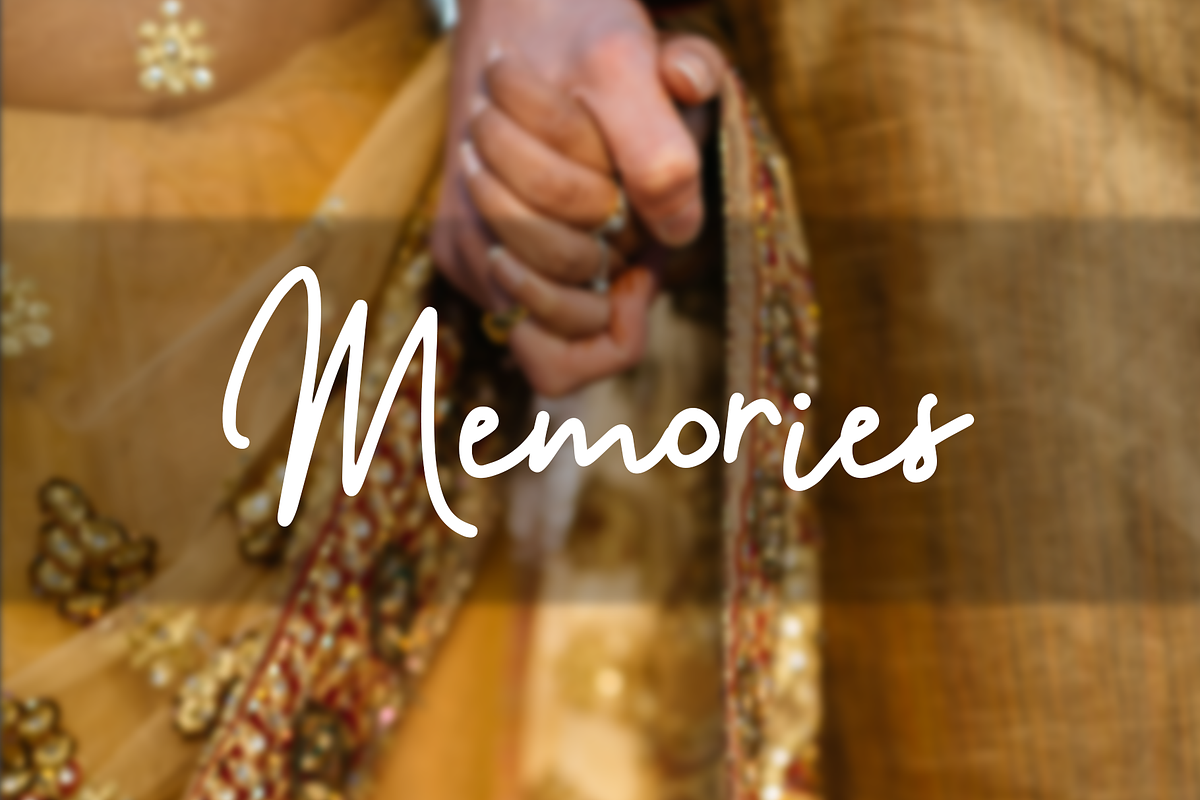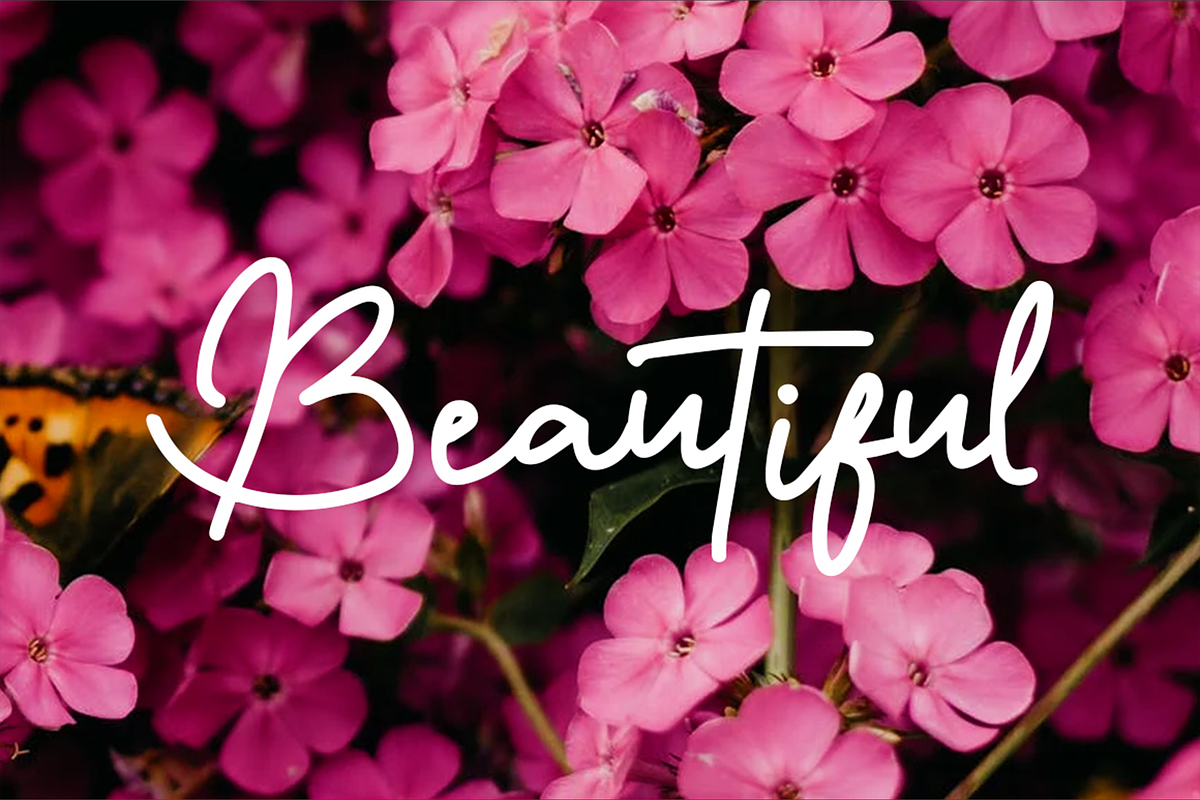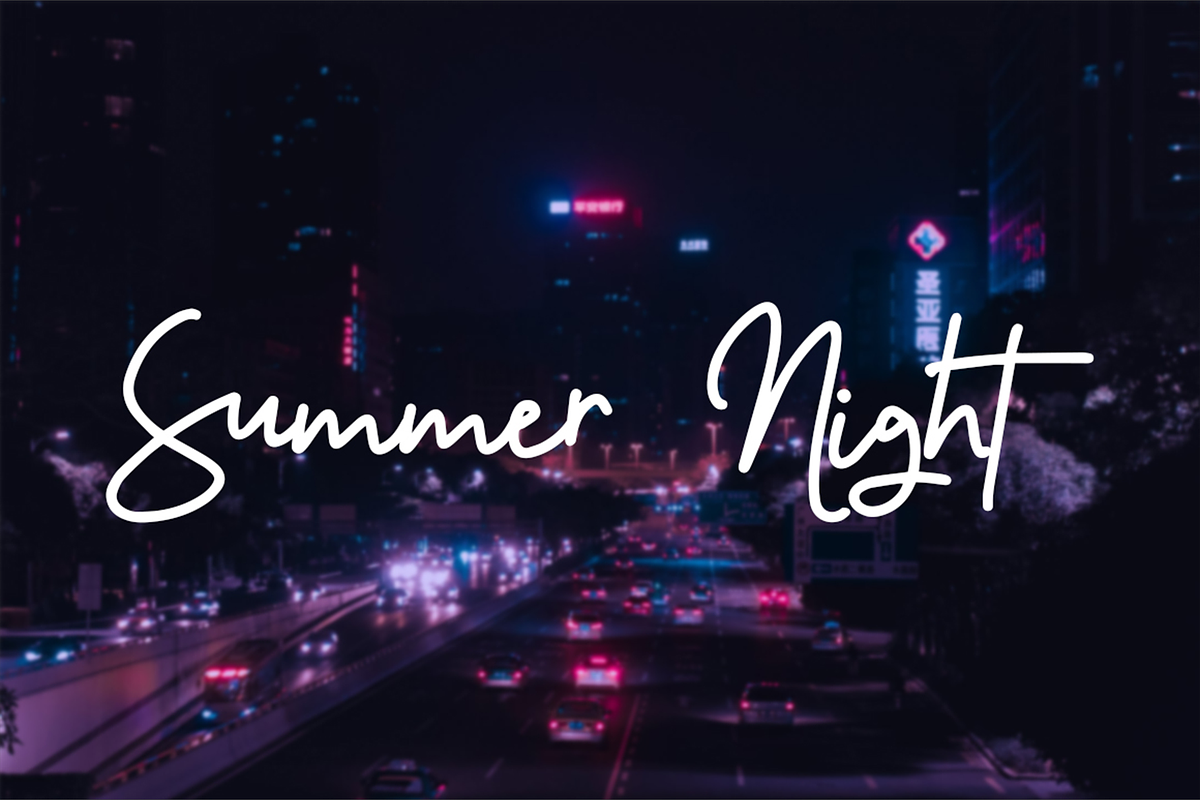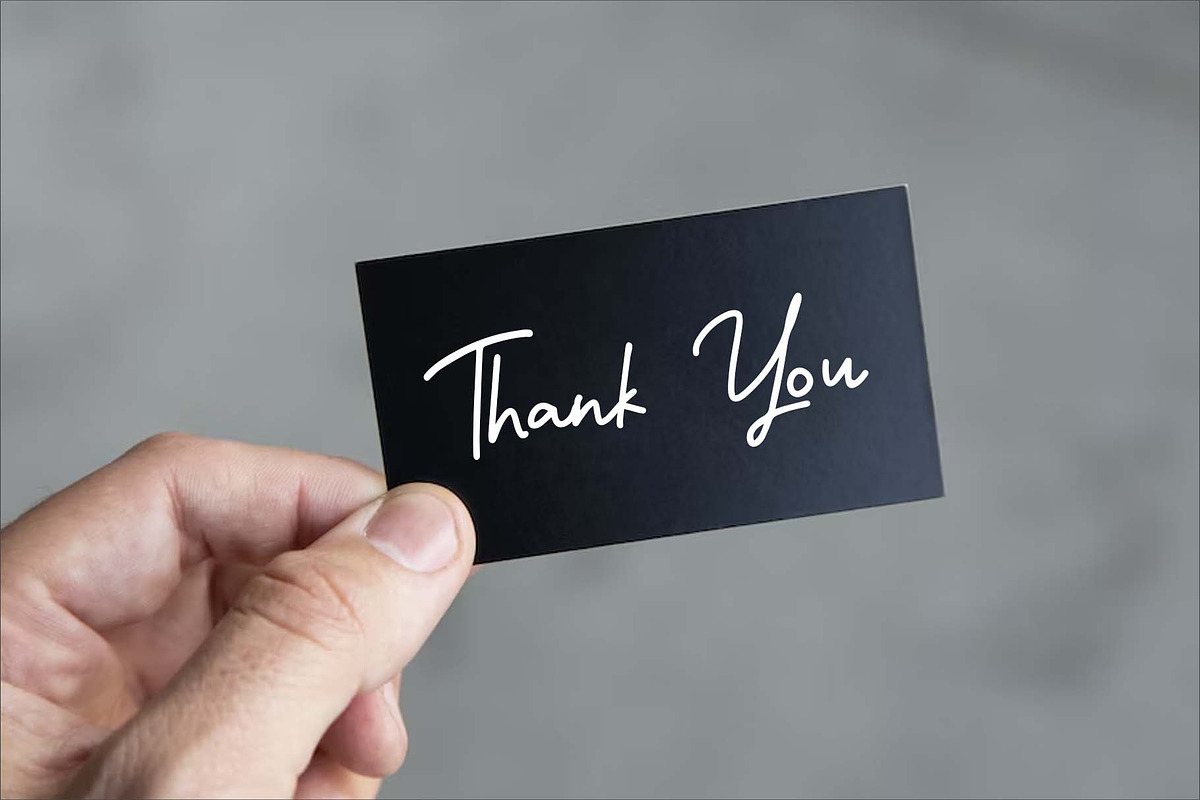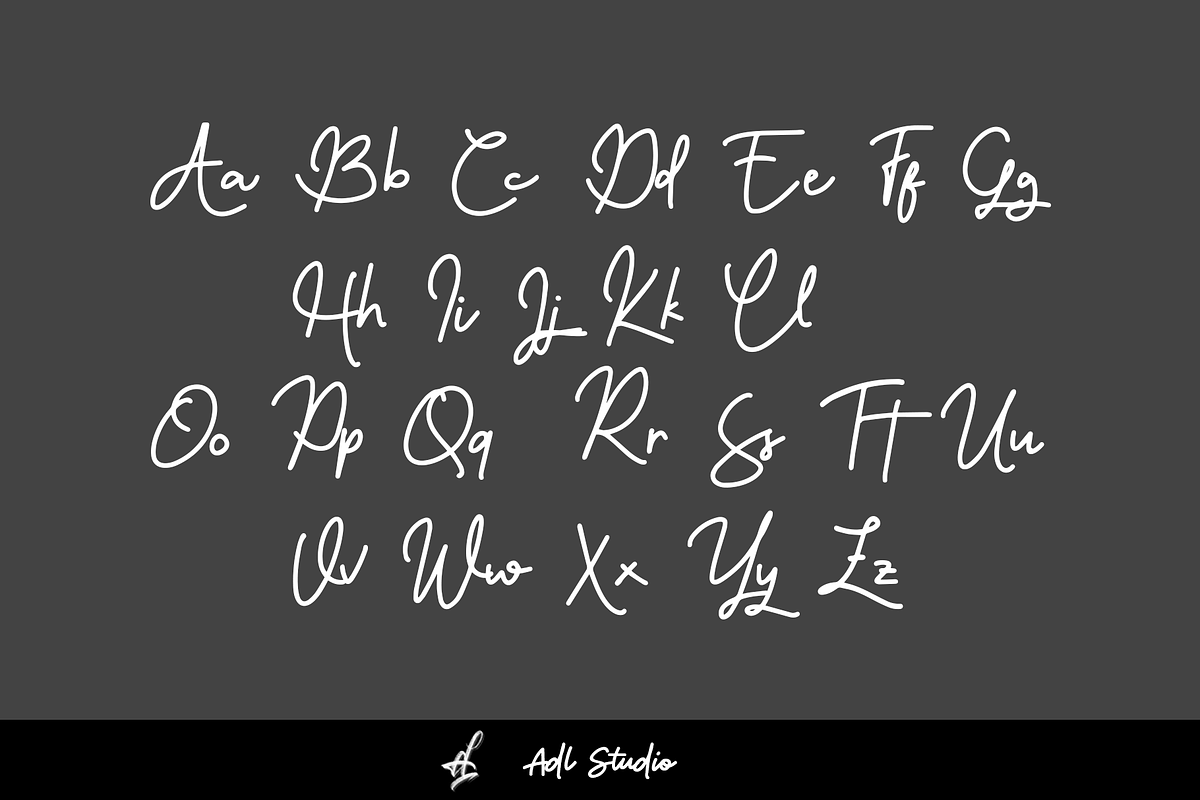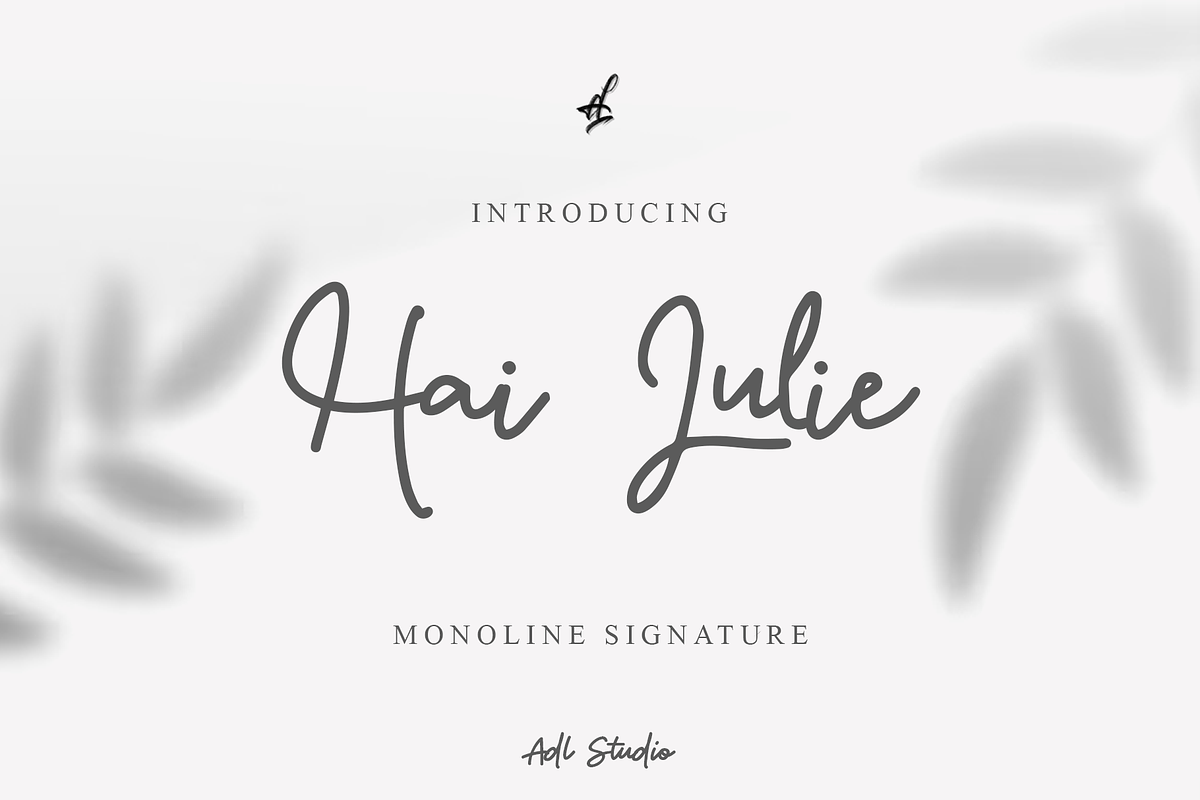
Hai Julie
Introducing the newest addition to the world of typography - a script font that is versatile, elegant, and perfect for all your design needs. Whether you're creating wedding invitations, photography portfolios, or greeting cards, this font has been designed with the utmost care and attention to detail, ensuring that it meets all your requirements.
The script font has a long and flowing design that is both clear and legible, making it easy to read while maintaining a sense of elegance and sophistication. Each character has been crafted to perfection, with unique flourishes and curves that add personality and charm to your designs.
This font is the perfect choice for wedding invitations, adding a touch of romance and glamour to your special day. Its delicate and intricate design is sure to capture the essence of your love story and create an unforgettable impression on your guests.
For photographers, this font adds a professional touch to your portfolio, enhancing the visual appeal of your work and creating a lasting impression on your clients. Its versatility allows it to be used for a wide range of projects, making it suitable for both modern and classic designs.
And for greeting cards and other designs, this font adds a touch of elegance and style, making your creations stand out and grab attention.
This script font is not just beautiful, but also highly functional, with characters that are clear and easy to read. Its unique style and attention to detail make it a must-have for any designer looking to create something truly special and memorable.